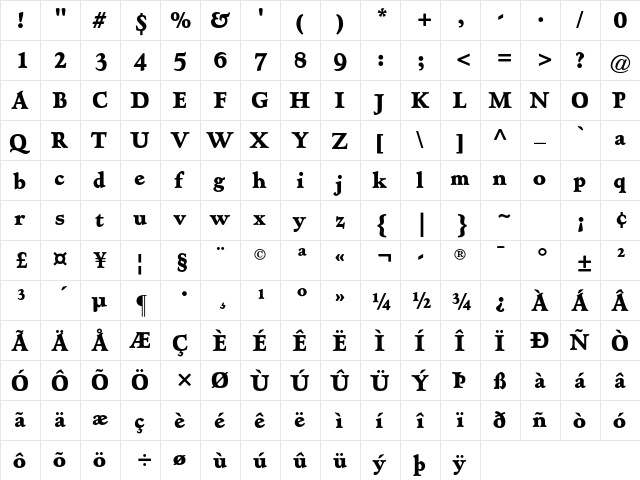
Hadriano Std Extra Bold Condensed
| Designer | Frederic W. Goudy |
Design Context for Hadriano Std Typeface
Hadriano Std is a composed and adaptable typeface that performs quietly and consistently across a wide range of design contexts. Its bold stroke weight gives it real presence on the page. The condensed width makes it efficient for tight spaces without sacrificing legibility.